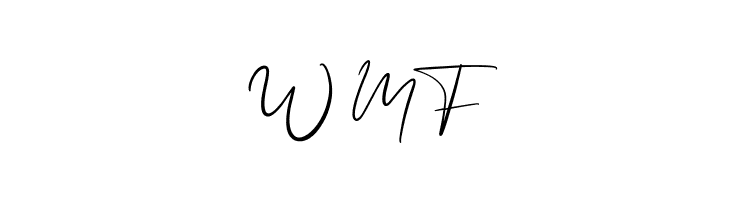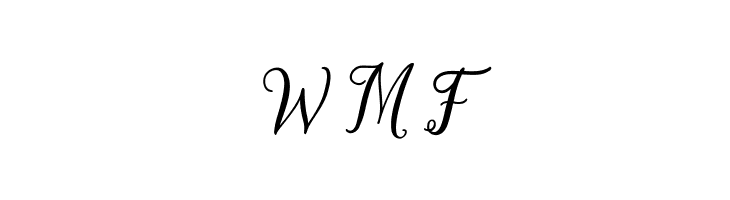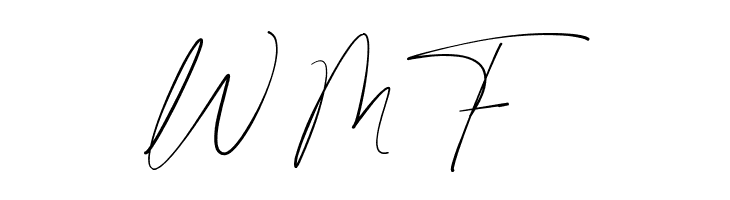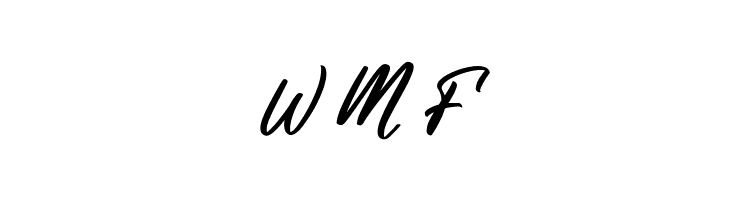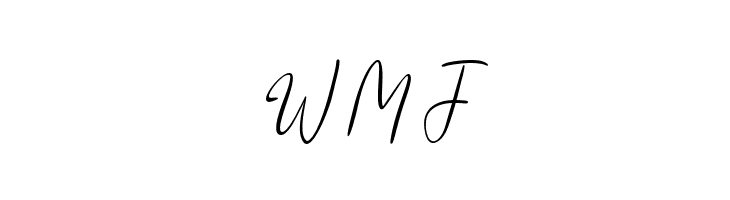
• Paulina Free
An elegant, flowing script font with smooth, continuous strokes and graceful curves.
• Dawsons Script Free
A fluid and elegant script font with graceful cursive strokes.
• Carols Night Free Regular
An elegant, flowing script font with a natural handwriting style.
• Matlagih Free
A bold, dynamic script font with a brush lettering style.
• Hachitos Free Regular
An elegant, flowing script font with smooth, cursive strokes.
• Purplemonths Free Regular
A fluid and elegant script font with interconnected, calligraphic letterforms.
• Risello Fruits Free Regular
A playful and elegant script font with flowing, cursive letterforms.
• Fallisanta Free Regular
An elegant script font with flowing, cursive letterforms and intricate swashes.
• Hammington Free Regular
A graceful and fluid script font with elegant, flowing lines.
• Ameriondela Free
A whimsical handwritten font with playful loops and delicate strokes.
• Steelkold Free Regular
A bold, modern script font with dynamic, flowing strokes.
• La Roux Free Regular
A playful, casual handwritten font with smooth, flowing lines and medium contrast.
• Arteknilo Free Font
An elegant, flowing script font with elongated, sweeping strokes.
• Ginloops Free Regular
A bold, flowing script font with a dynamic, handwritten style.
• Jetha Crimson Free Font
A dynamic, expressive handwritten font with fluid, flowing letterforms.
• Theodorlane Free
A lively, expressive handwritten font with dynamic, cursive letterforms.
• Calks Free
A bold, flowing script font with elegant, cursive letterforms.
• Nymburgh Free Regular
A bold, energetic script font with a handwritten, dynamic style.
• Queensytrix Free Regular
A graceful, cursive script with a modern twist, perfect for elegant designs.
• Callways Free Regular
A bold, flowing script font with elegant, interconnected characters.